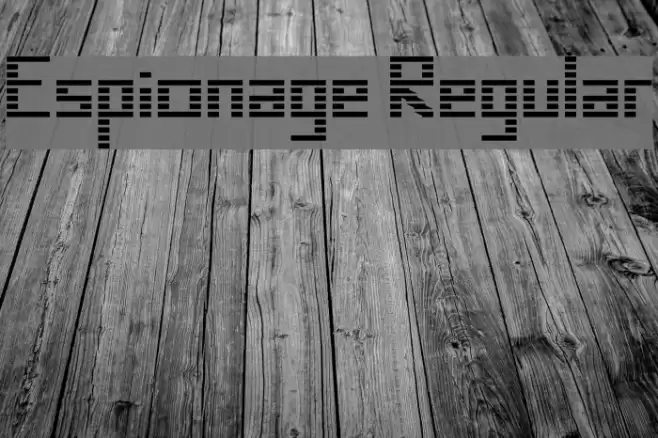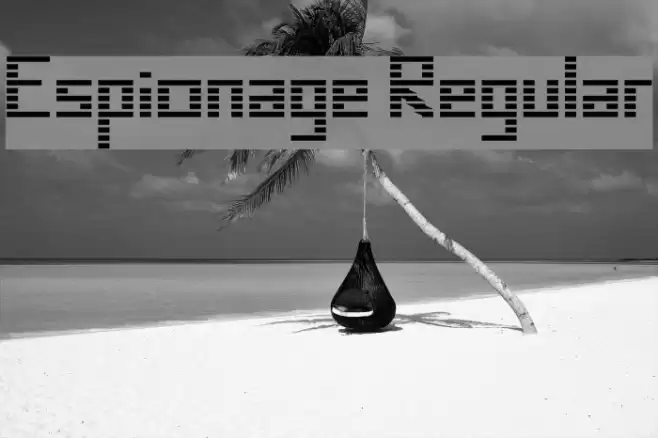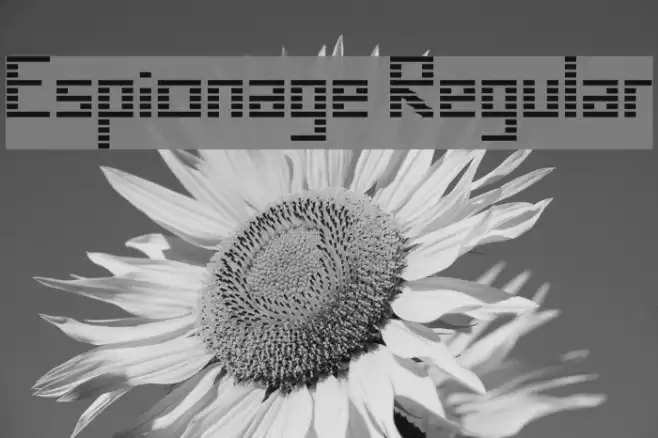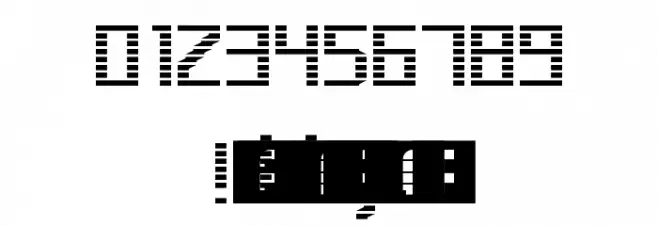
Espionage Regular Font
Espionage Regular Description
This font features a distinct, modern design characterized by its use of horizontal lines to form each character. The uppercase letters are bold and structured, giving a sense of strength and stability. The lowercase letters maintain the same horizontal line motif, creating a cohesive look across the typeface. Numbers and special characters are also designed with the same pattern, ensuring uniformity. The font's unique style makes it stand out, making it suitable for projects that require a futuristic or digital aesthetic.
A modern, line-based font with a futuristic digital style from Uncategorized fonts.
- Proposed Projects: Ideal for digital interfaces, tech branding, posters, and video game graphics.